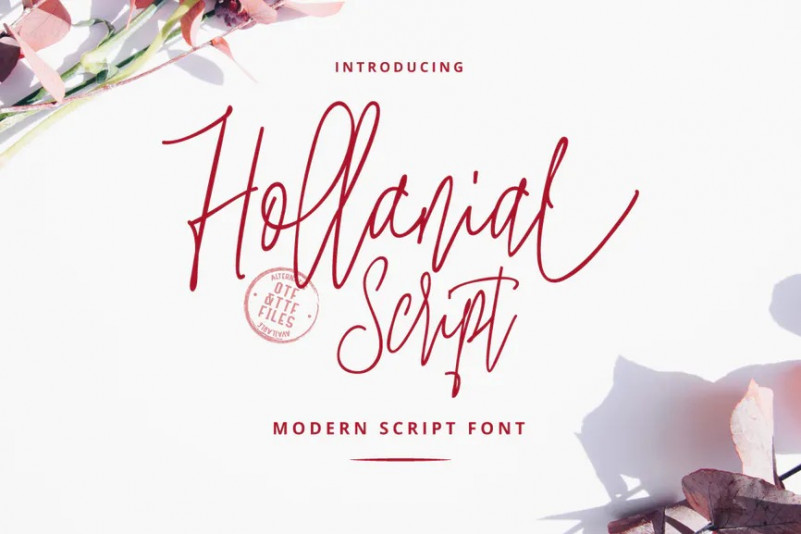
Hollanial Font
Say hello to Hollanial Script – A contemporary calligraphy, with a vintage feel, style calligraphy with moving baseline and elegant touch. That makes the font look fabulous! Can be used for various purposes, such as headings, signature, logos, wedding invitation, t-shirt, letterhead, signage, news, posters, badges etc.